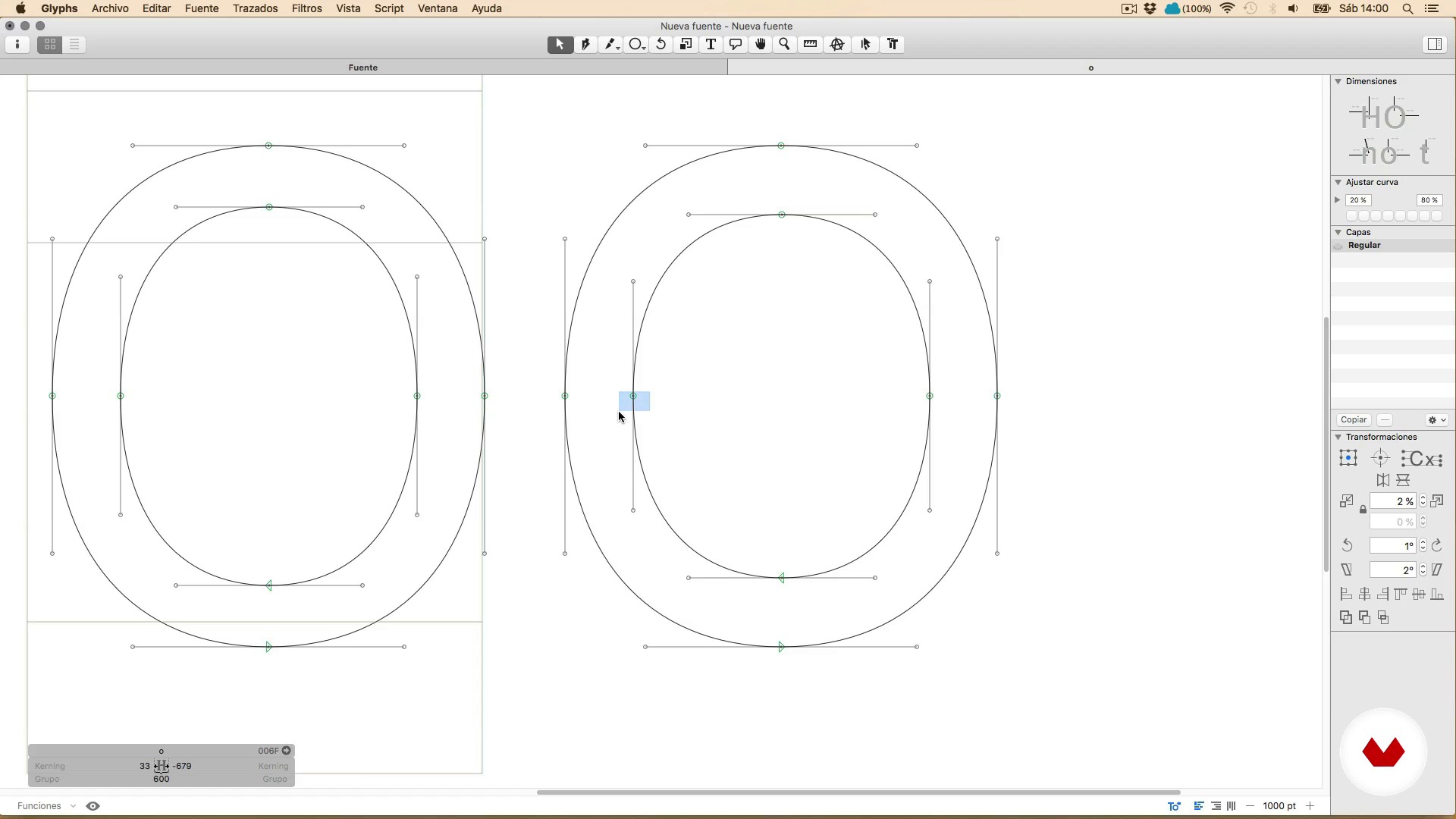
Design a Digital Font from A to Z
The drawing tools of Glyphs 2
About the video: The drawing tools of Glyphs 2
In this video lesson Juanjo López addresses the topic: The drawing tools of Glyphs 2, which is part of the Domestika online course: Design a Digital Font from A to Z. Learn to design a font from scratch with Glyphs, Illustrator, and OpenType functions.
“An intriguing aspect of Glyphs is that I possess two ovals. as the program creates them. two ovals. exactly as the program generates them. which are rather unattractive ovals. more mathematical in nature. An O typically has increased tension at the corners. which usually aids in creating a more which usually helps us create a better form. To modify the tension of a curve. i'll adjust it for the entire U. There's an intriguing menu called adjust curve. allowing precise tension changes. This feature lets me copy and paste tensions accurately. It's a tool that enables me to replicate tension s...”